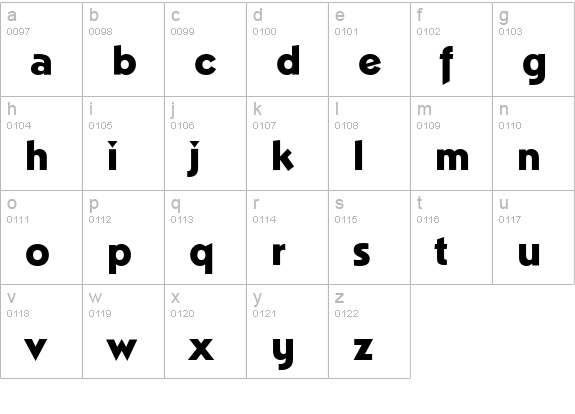
NapoliSerial-Heavy-Regular is a heavy, high-impact variant in the NapoliSerial typeface family \xE2\x80\x94 well suited to high-impact headlines, posters, and display advertising.
NapoliSerial-Heavy-Regular font is a bold and eye-catching typeface that exudes a sense of strength and modernity. With its thick strokes and clean lines, this font is perfect for making a statement in your designs. Whether you're creating posters, logos, or headlines, NapoliSerial-Heavy-Regular font will command attention and leave a lasting impression. Best of all, NapoliSerial-Heavy-Regular font is available for free download at FontsMarket.com. This means you can easily incorporate this striking typeface into your projects without any additional cost. Don't miss out on the opportunity to enhance your designs with NapoliSerial-Heavy-Regular font today!